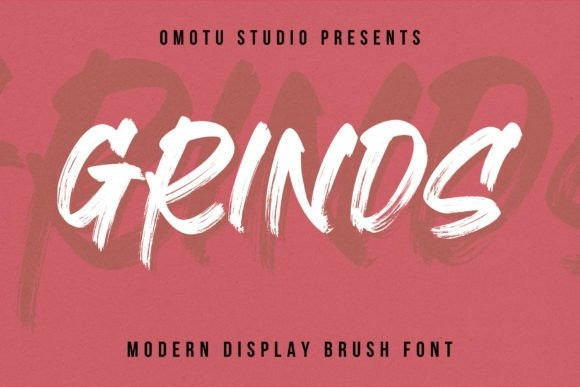
Grinds Brush Font
Grinds Brush Font is a handwritten display brush font. It is suitable for branding, logotype, apparel, T-shirt, Hoodie, product packaging, quotes, flyer, poster, book cover, advertising and so much more.